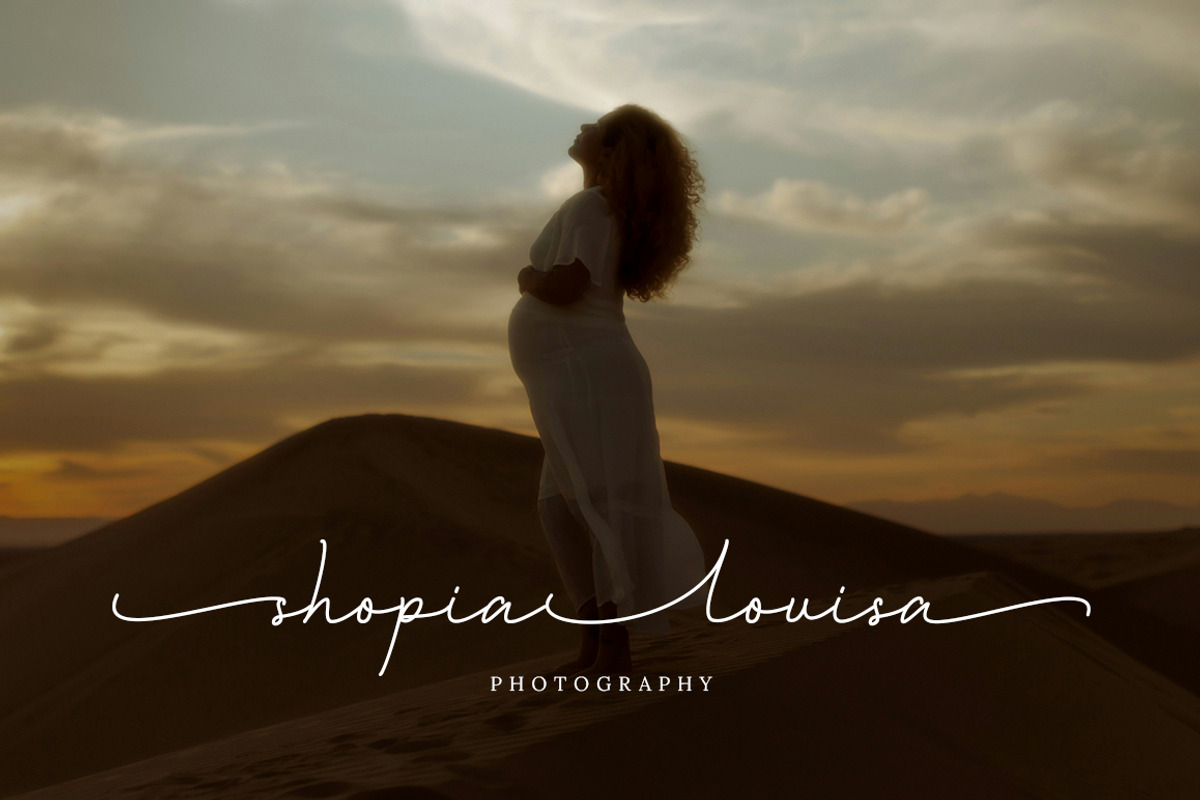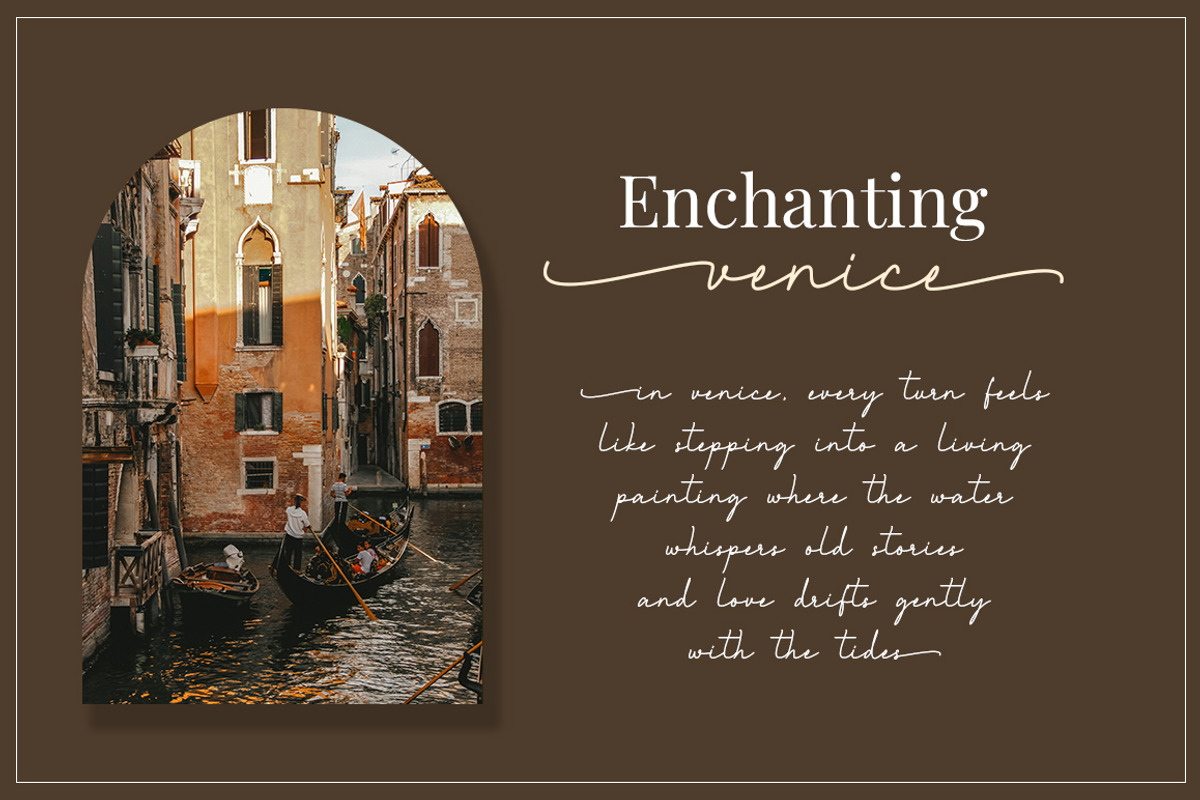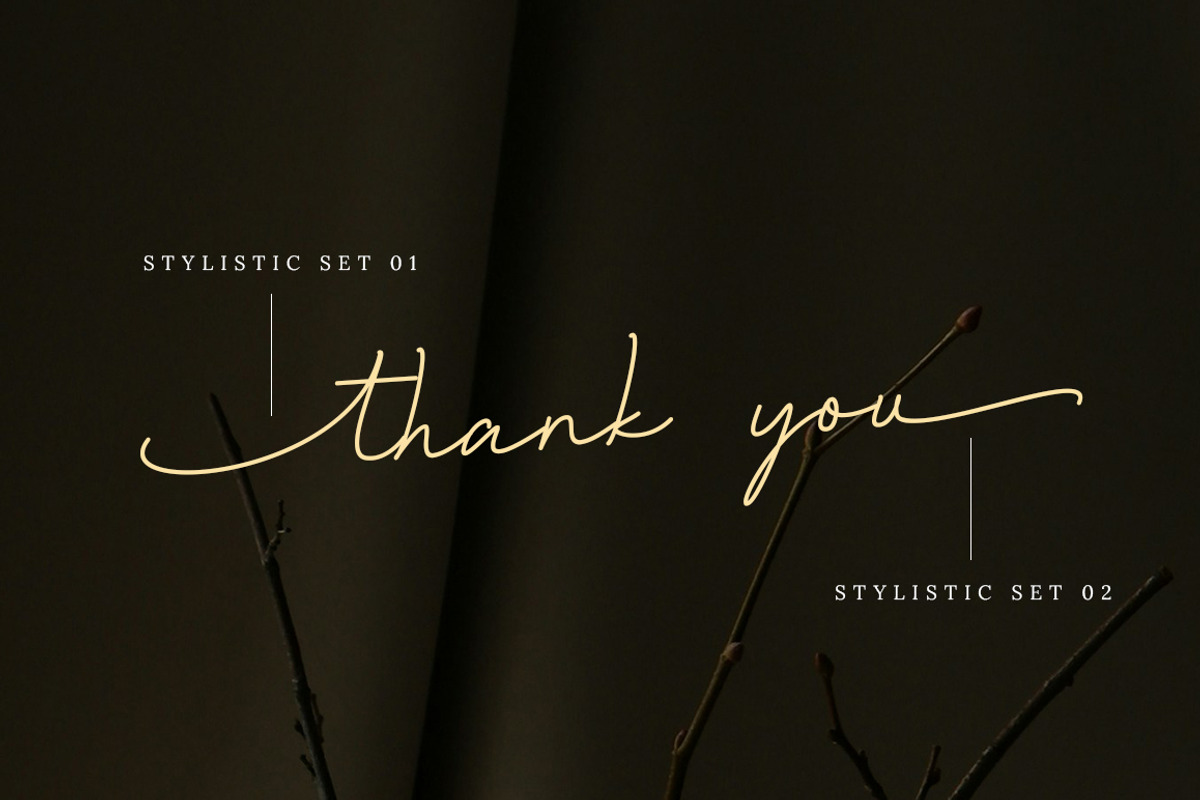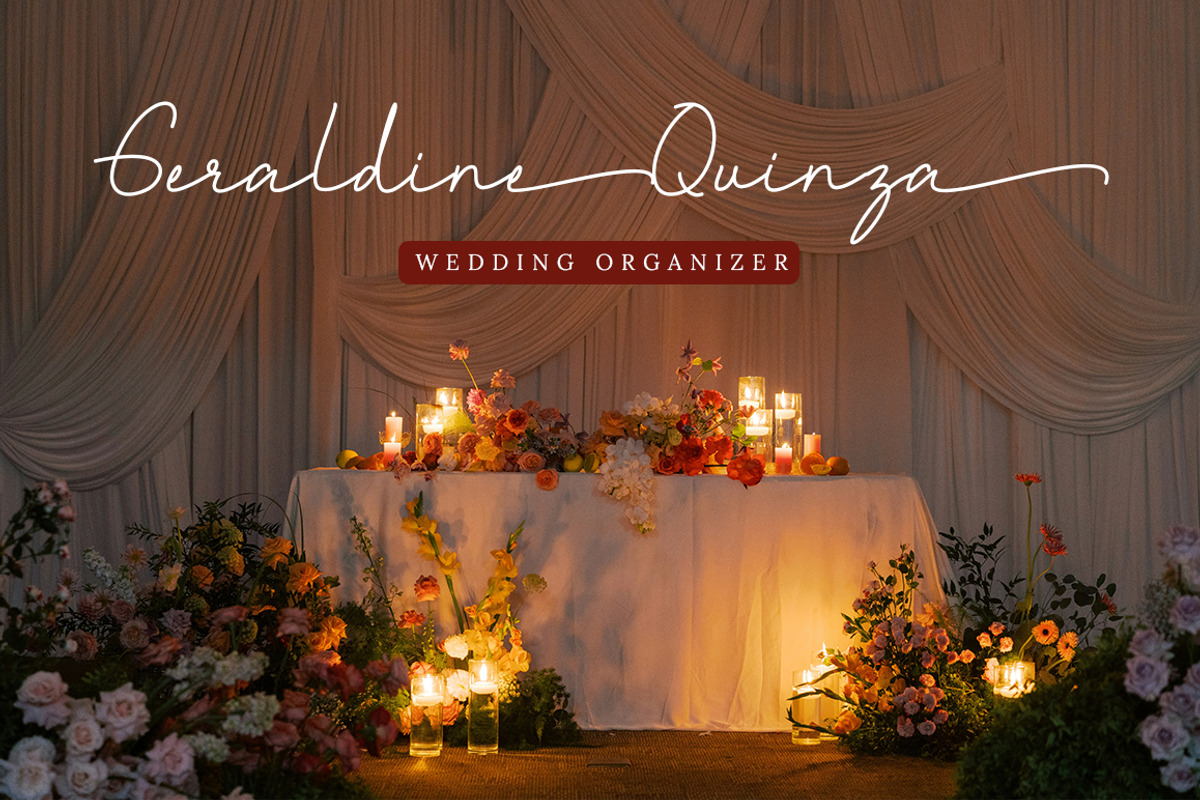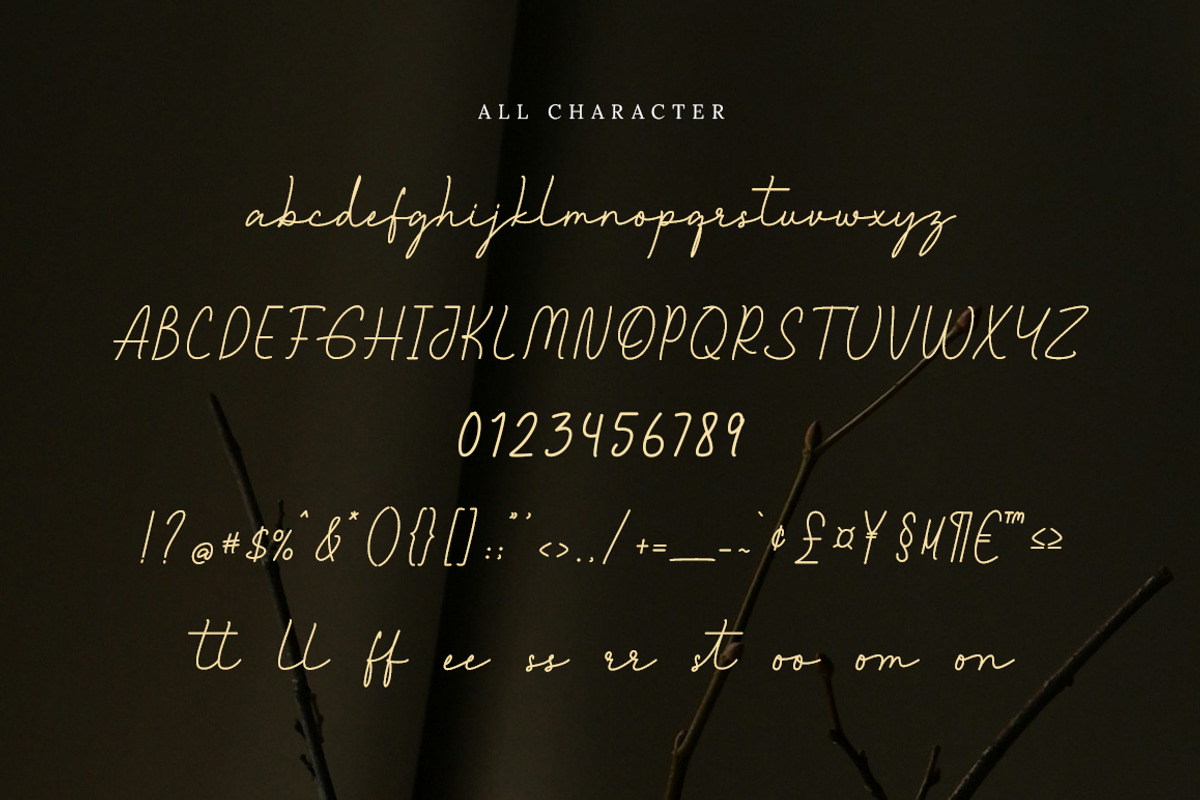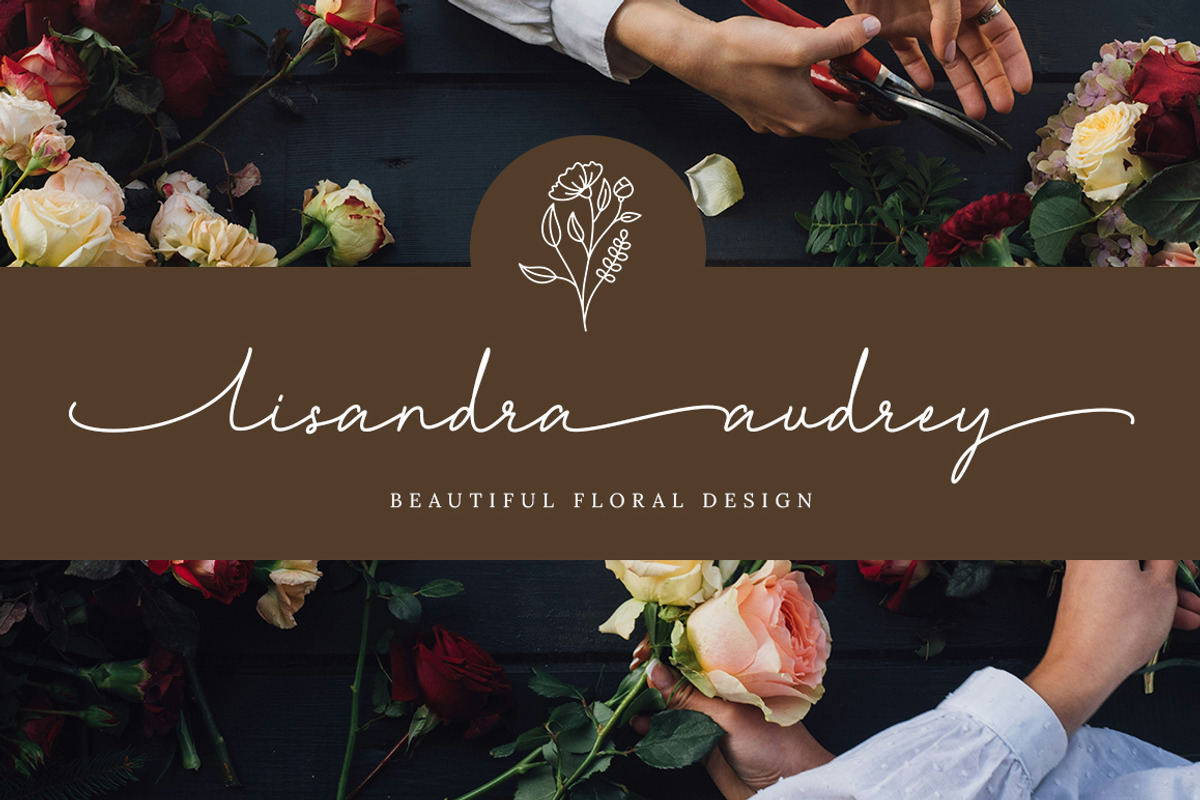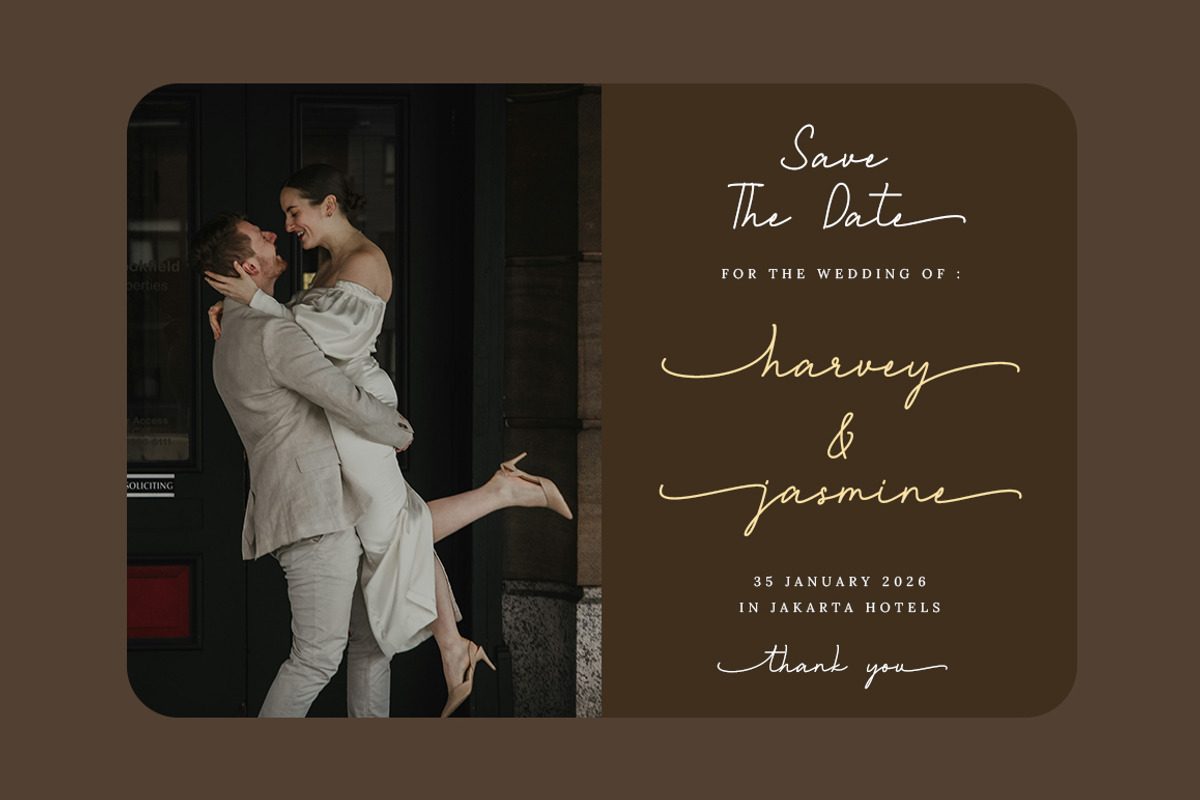
Living my story
Living My Story is an elegant and luxurious handwritten script font designed to bring sophistication, beauty, and premium charm to every project. With its smooth curves, refined strokes, and graceful flow, this font captures the essence of modern elegance while maintaining an authentic handwritten feel. Perfect for designers seeking a font that tells a story with style, emotion, and timeless luxury.
This font is great for signature logos, business cards, photography watermarks, wedding invitations, product design, fashion, branding, magazines, and much more.
- Stylistic Set
- Support Multilingual